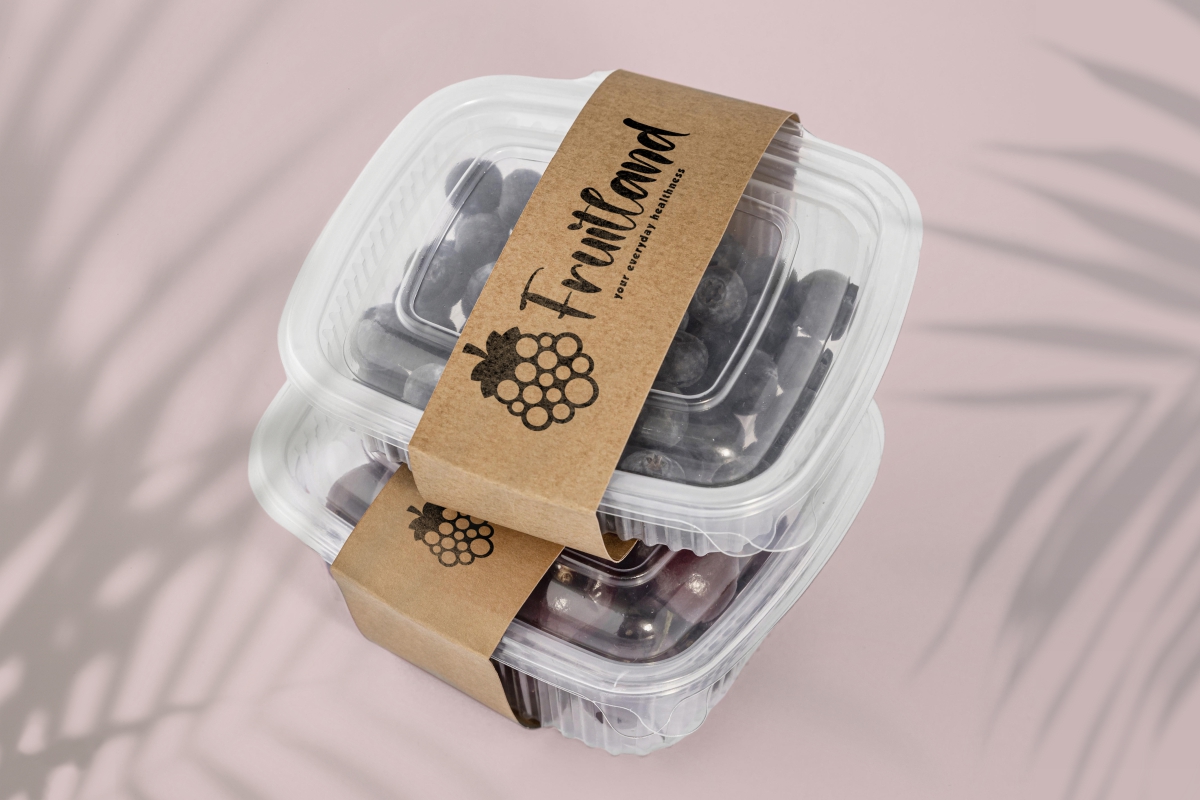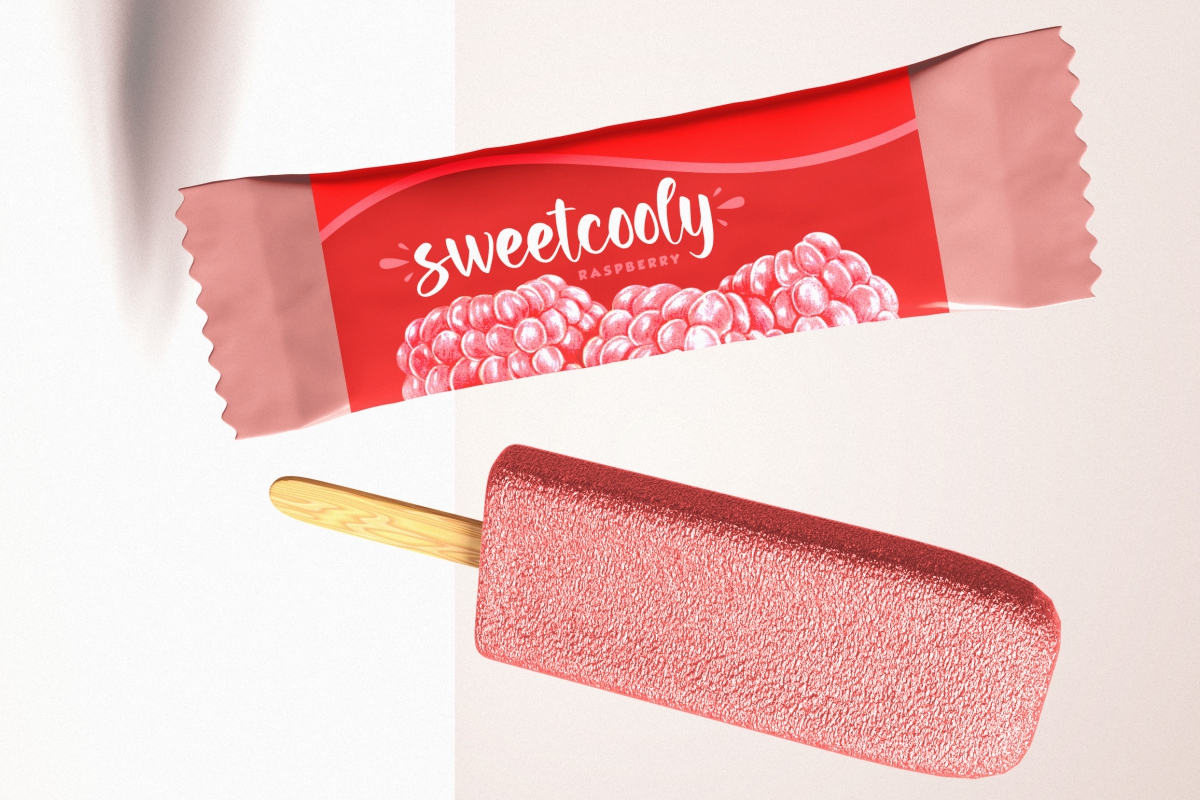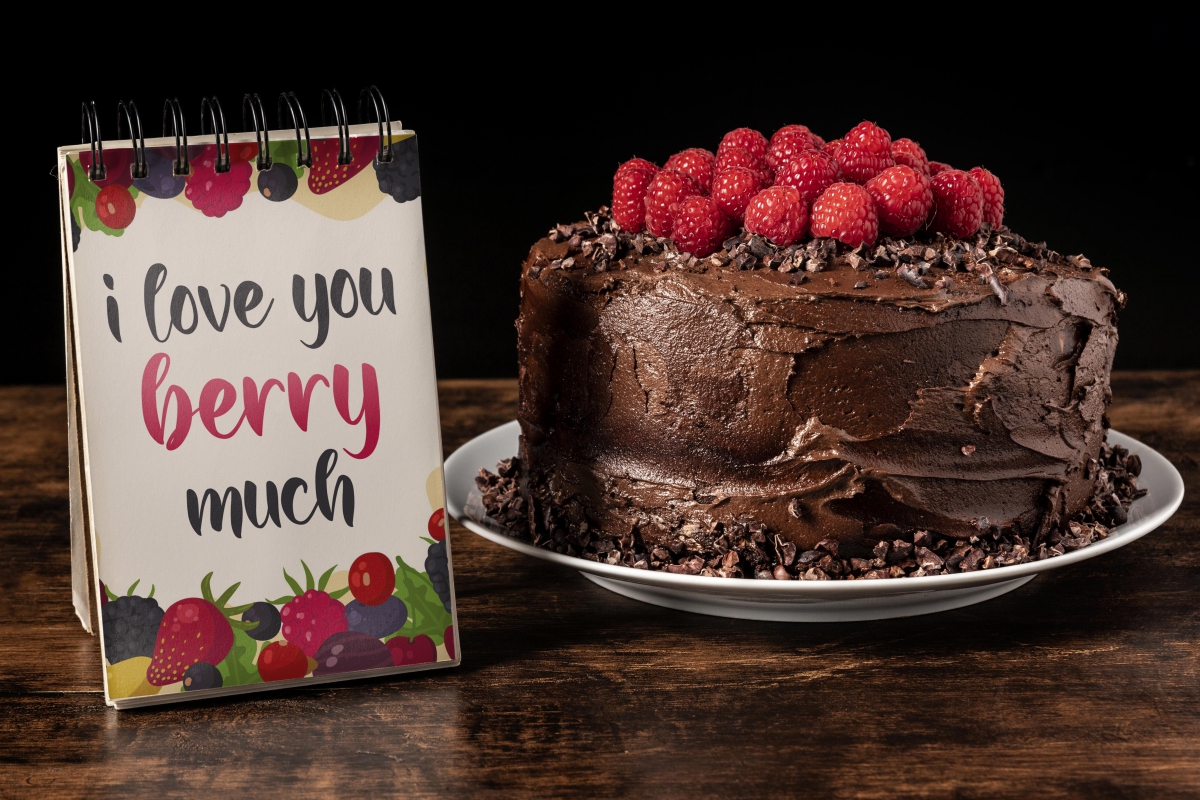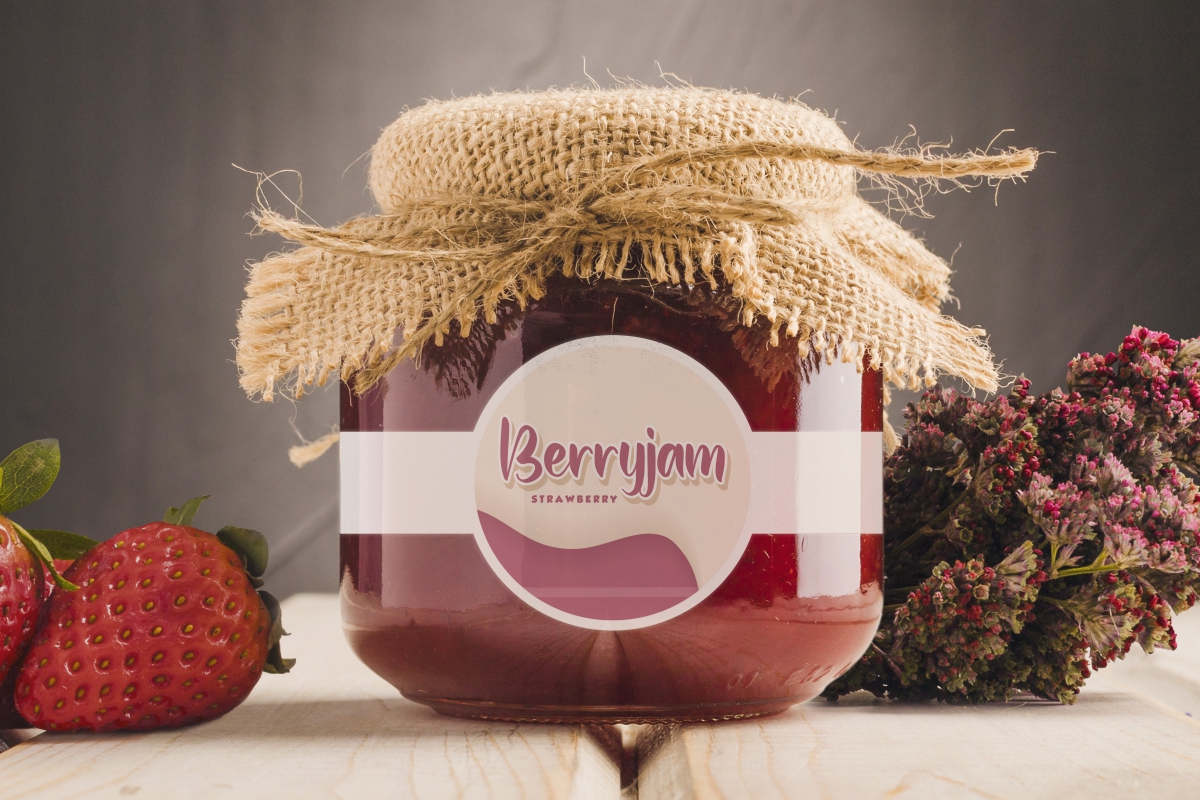
Hello Raspberry Font
Hello Raspberry Script Font
It’s a fun handwriting script, created by CalligraphyFonts. This font is inspired from the freshness of raspberries and will go well for your creative projects such as billboard, creating logo, ice cream label, product packaging, quotes, recipe book, title, etc.